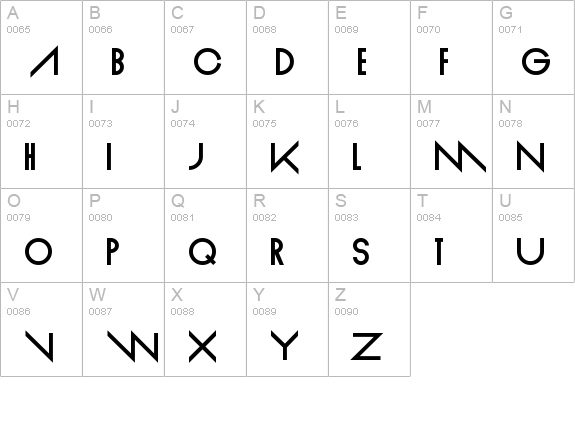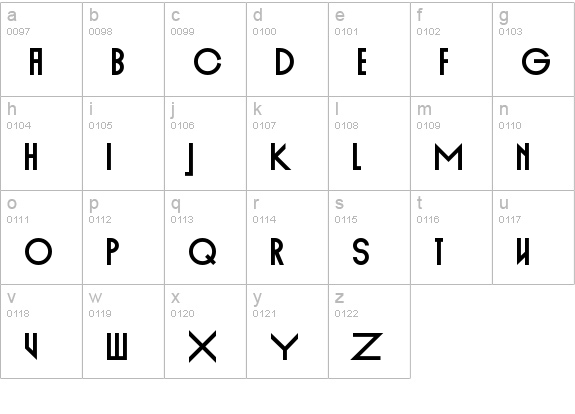
Empire Straight Font Details
Empire Straight font is a perfect blend of elegance and simplicity. This font exudes a sense of timeless beauty and modern sophistication. Its clean lines and straight edges make it ideal for a wide range of design projects, from branding to editorial design. With its bold and commanding presence, Empire Straight font demands attention and effortlessly stands out on any medium. Its versatile nature allows it to be used for both display purposes and body text, making it a versatile choice for any designer. What sets Empire Straight font apart is not only its stunning aesthetics, but also its availability. This font is freely available to download at FontsMarket.com, making it accessible to designers of all levels. Whether you're a professional designer or a beginner, you can now add this magnificent font to your collection without any cost. The clean and crisp look of Empire Straight font is perfect for creating impactful headlines, logos, and posters. Its readability ensures that your message is conveyed clearly and effectively, while its unique charm adds a touch of sophistication to any design. Whether you're working on a branding project, a magazine layout, or a website design, Empire Straight font is the perfect choice to elevate your work to new heights. Its timeless appeal and freely accessible nature make it a must-have font for any designer looking to make a lasting impression. Download Empire Straight font for free at FontsMarket.com and let your creativity soar with this elegant and versatile typeface.